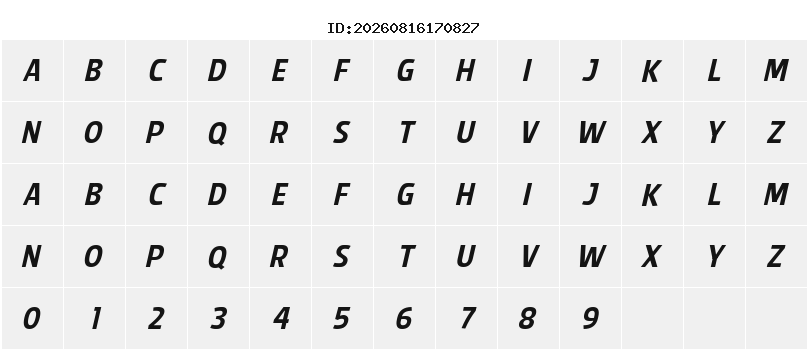
• Font Name: Splendid Plan 9
• Font ID: Splendid Plan 9 Italic
• Full Font Name: Splendid Plan 9 Italic
• Version: v1 - 1/28/2012
• PostScript Name: SplendidPlan9Italic
• Character Count: 210
About Splendid Plan 9.ttf
Splendid Plan 9.ttf is a modern, elegant sans-serif font designed for ultimate readability and visual harmony. Perfect for branding, headlines, web design, and print materials.